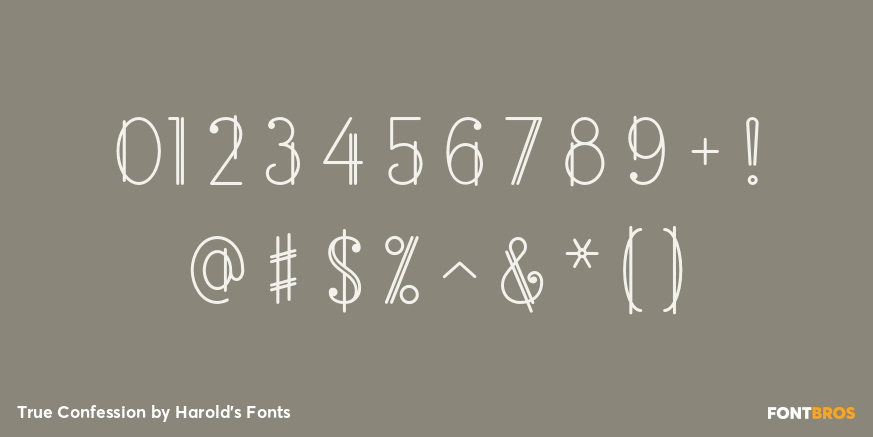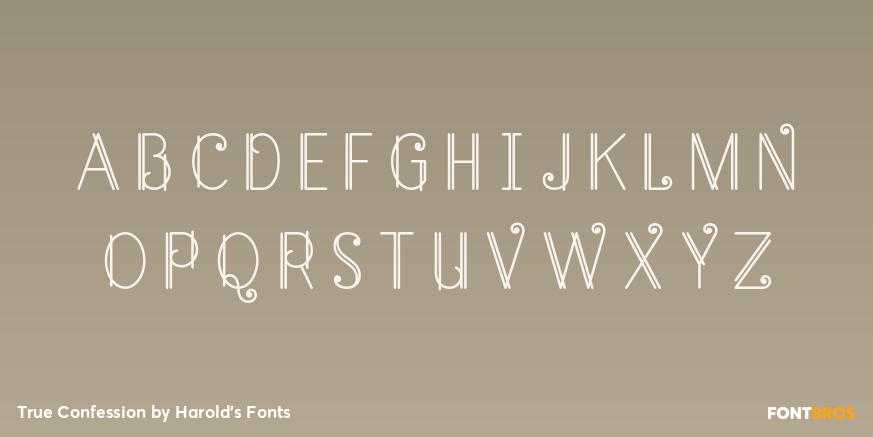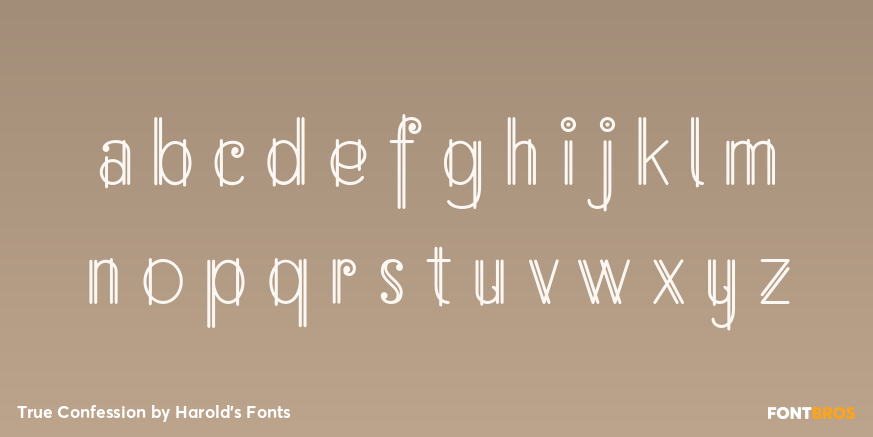
True Confession
Font Family by Harold's Fonts
TRUE CONFESSION n is a delicate and lively font that suggests Art Deco metalwork. Inspired by the hand-lettered main title of the 1937 film of the same name starring Carole Lombard, art directed by Hans Dreir and Robert Usher. If you want this style in a monogram font, check out my Art Deco Monograms.